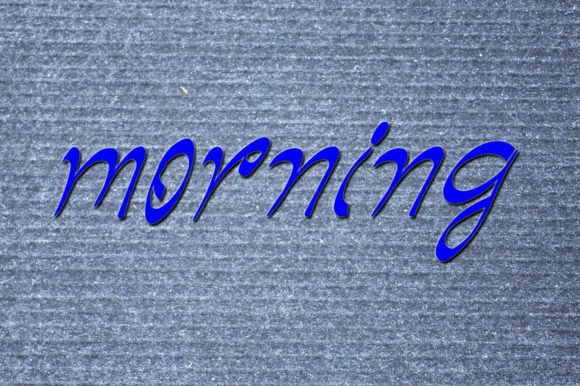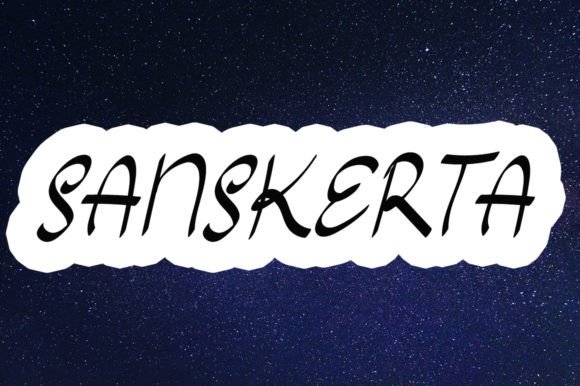
Introduction to Sanskerta Font
The moment of truth in any creative project – when you finally find the perfect font to elevate your design to the next level. I still remember the excitement of stumbling upon the Sanskerta Font, a modern calligraphy font that exudes luxury and elegance. Its fresh designs and expensive touches immediately caught my attention, and I knew I had to share it with fellow designers.
Whether you’re working on a wedding invitation, brochure, magazine, or poster, the Sanskerta Font is an invaluable design resource that can take your project to new heights. With its PUA encoded feature, you can easily access all the amazing glyphs and ligatures, making it a breeze to customize and create stunning visuals.
Key Features of Sanskerta Font
- High-quality design resource with intricate details and elegant style, perfect for creative projects.
- Features a transparent background, making it easy to customize and combine with other design elements.
- Designed with precision and attention to detail, resulting in a high-resolution font suitable for print and digital applications.
- Includes a range of glyphs and characters, making it a versatile design resource for various creative projects.
- Supports various languages, including Sanskrit, Hindi, and other languages that use the Devanagari script.
- Available in multiple font sizes, allowing designers to choose the perfect size for their project.
Honest Review: Sanskerta Font
I recently had the chance to work with the Sanskerta Font in a creative project and I must say it was a game-changer. The high quality of this font is truly impressive, and I appreciate the fact that it’s a free download, making it a fantastic design resource for anyone working on a budget.
One of the standout features of Sanskerta Font is its ability to work seamlessly with a transparent background. This makes it perfect for projects that require a bit of creativity and flair. I also appreciate the fact that it’s available for free, which is a huge bonus for designers who are always on the lookout for high-quality fonts without breaking the bank.
- ✨ Works well with transparent backgrounds
- ⚠️ Limited language support (only available in a few languages)
- ⚠️ Not as versatile as some other fonts on the market
Overall, I’m really impressed with the Sanskerta Font and would definitely recommend it to anyone looking for a high-quality font for their creative project. With a bit of creativity and flair, this font can really take your design to the next level.
Tips for Getting the Most Out of Sanskerta Font
For high-quality results, use Sanskerta Font on a transparent background to create a design resource that stands out. Experiment with different font sizes and styles to find the perfect combination for your creative project.
Common Use Cases for Sanskerta Font
Sanskerta Font is ideal for creating intricate and elegant designs, making it perfect for wedding invitations, cultural events, and other creative projects where a touch of sophistication is needed.